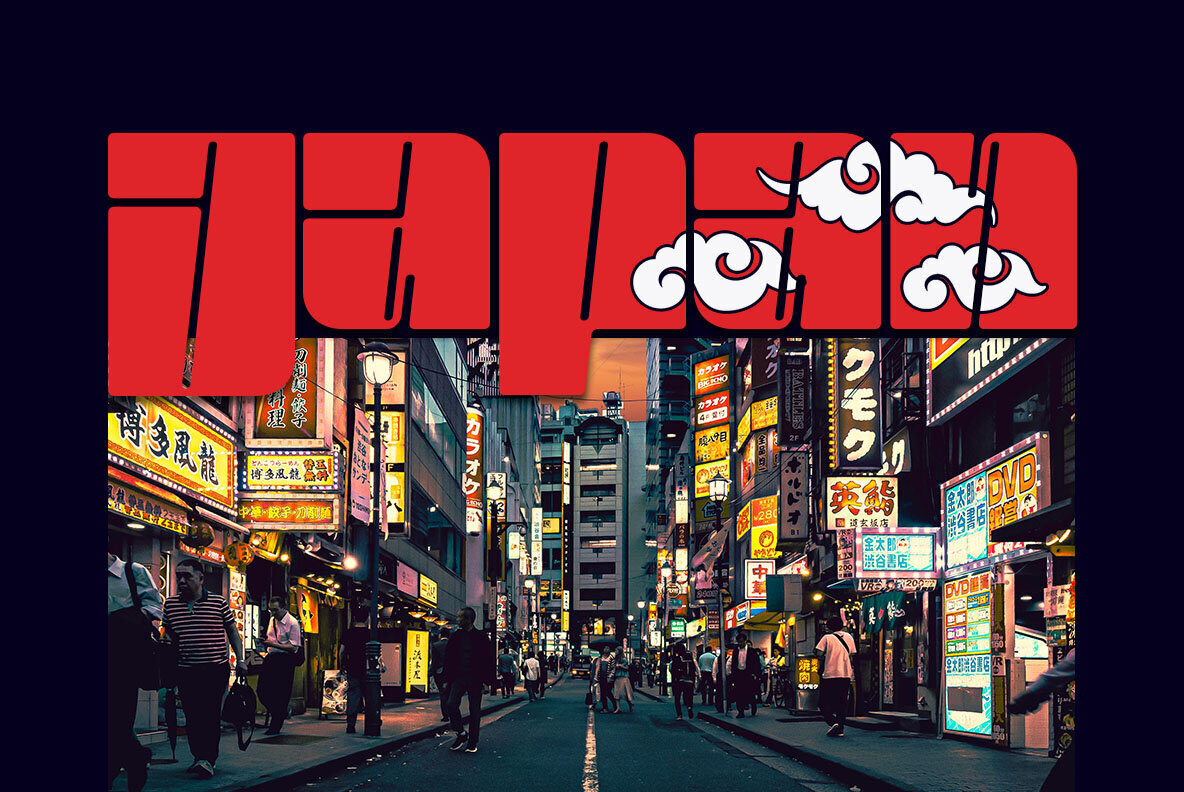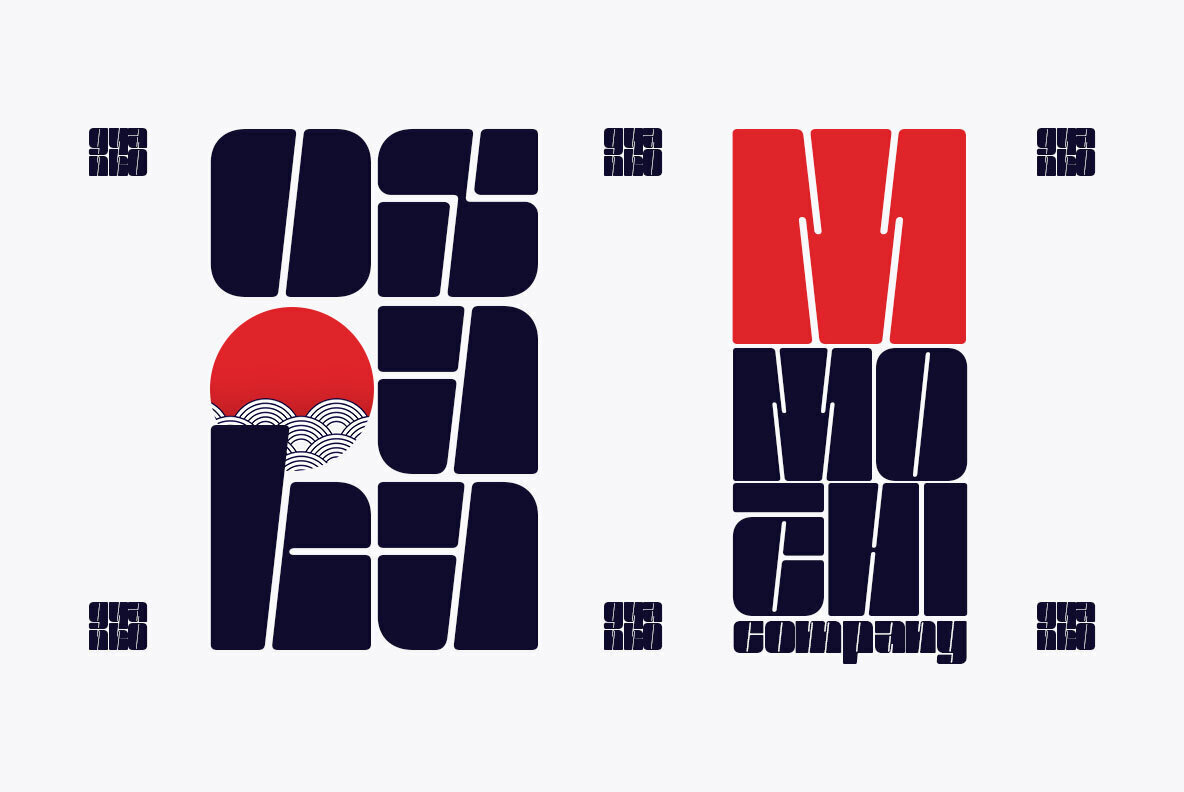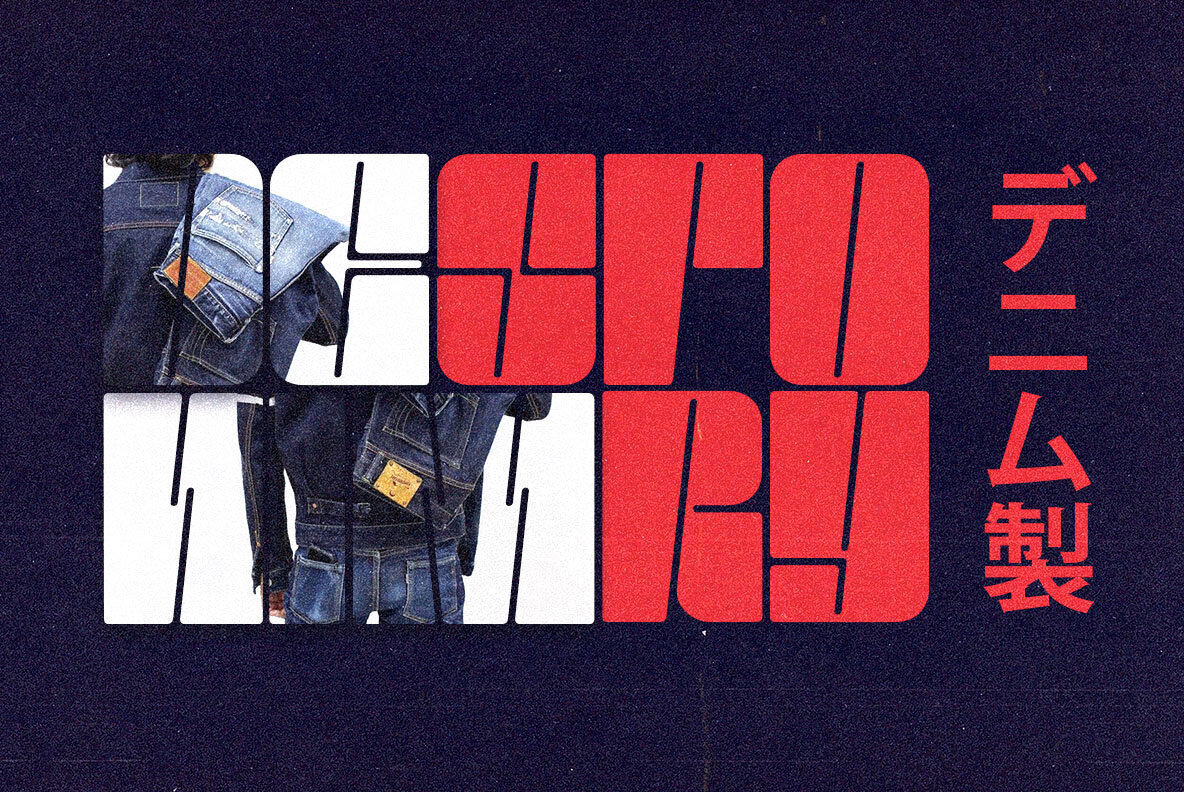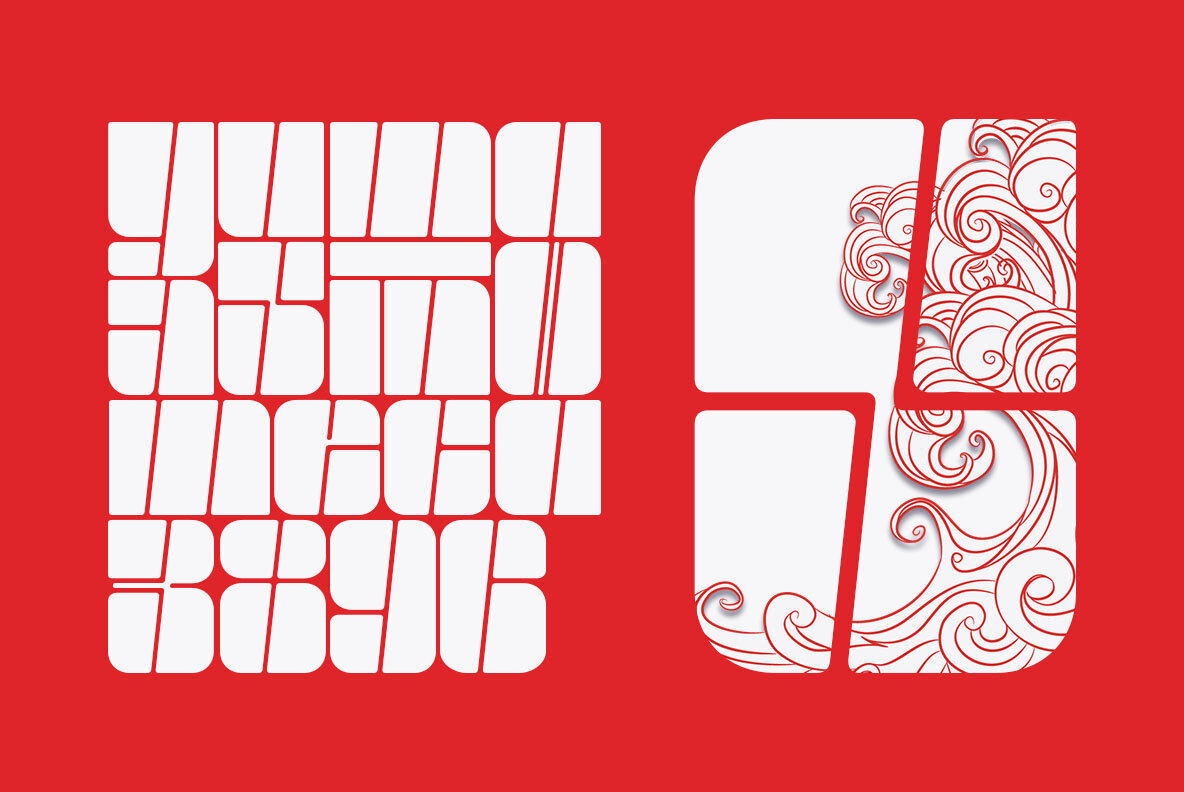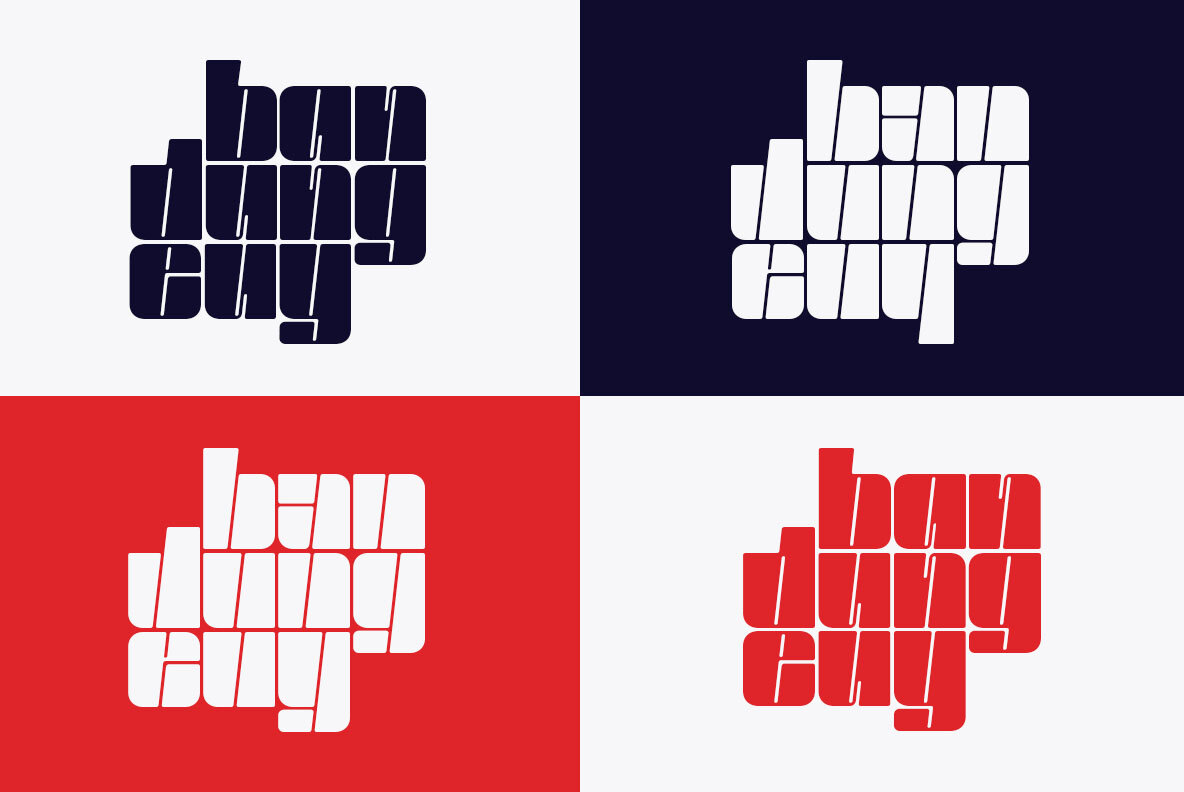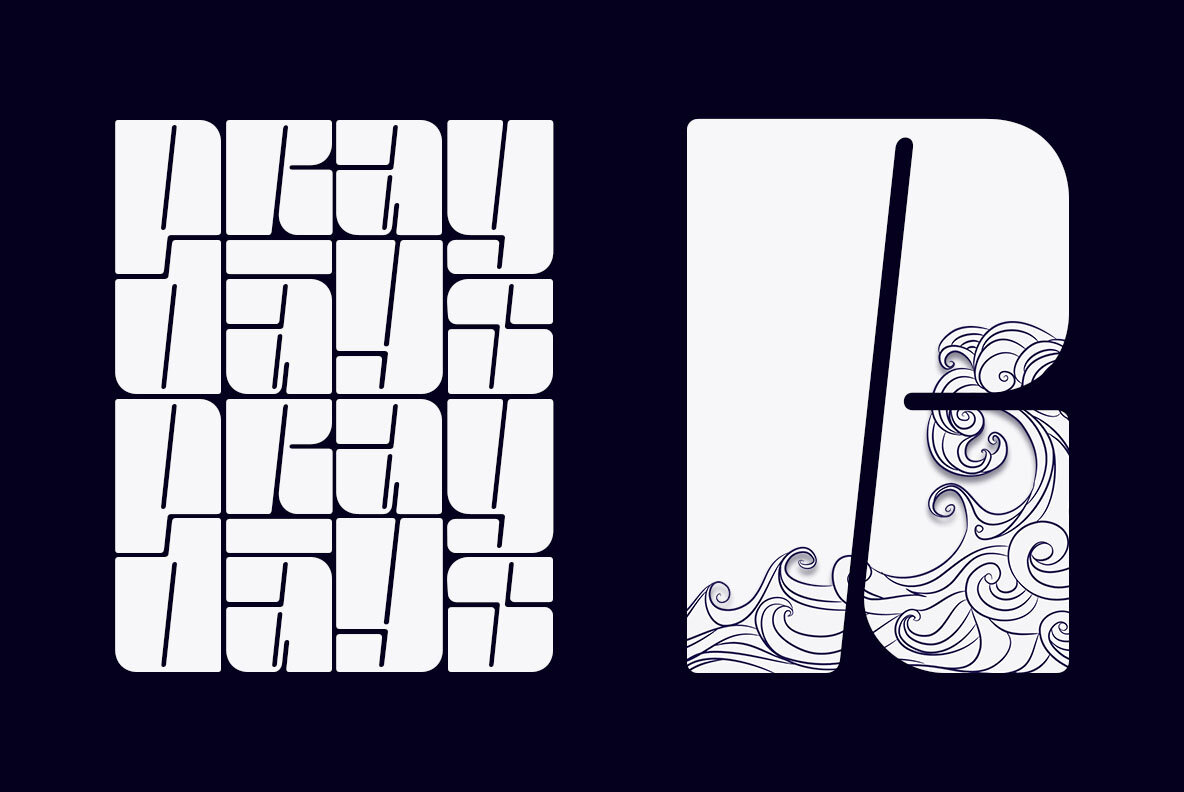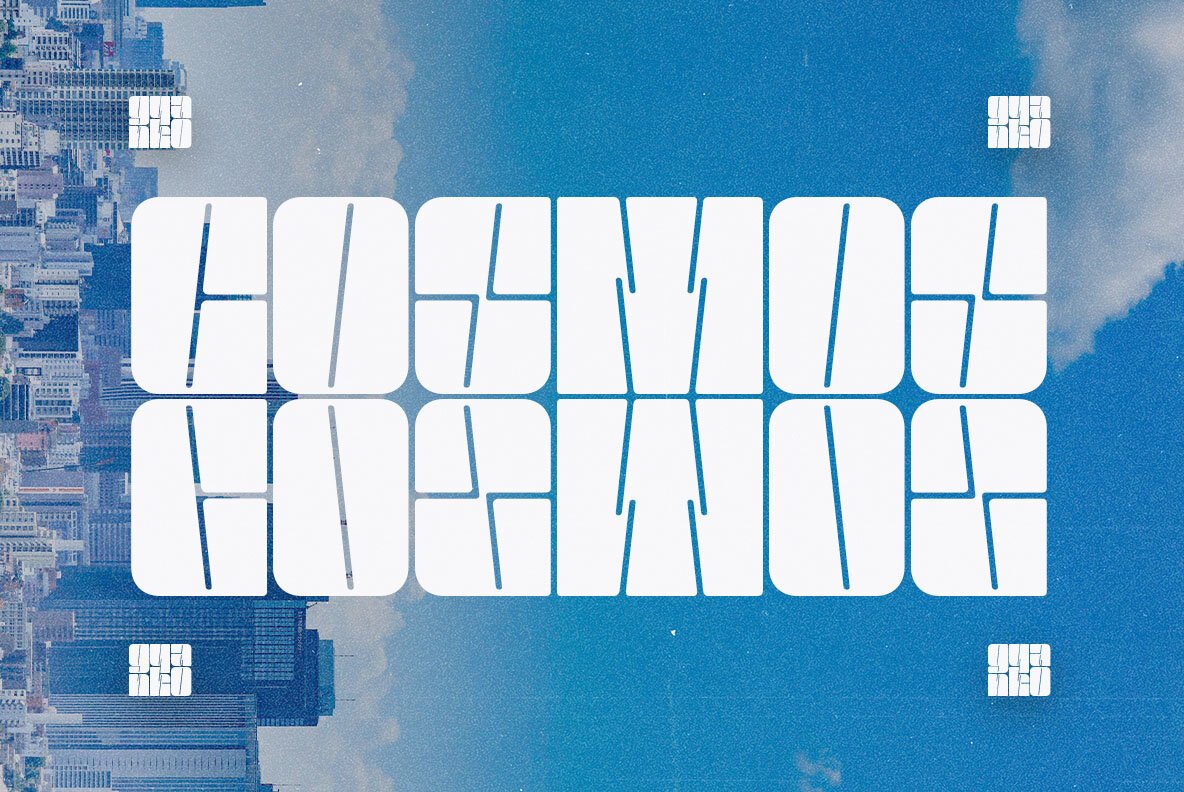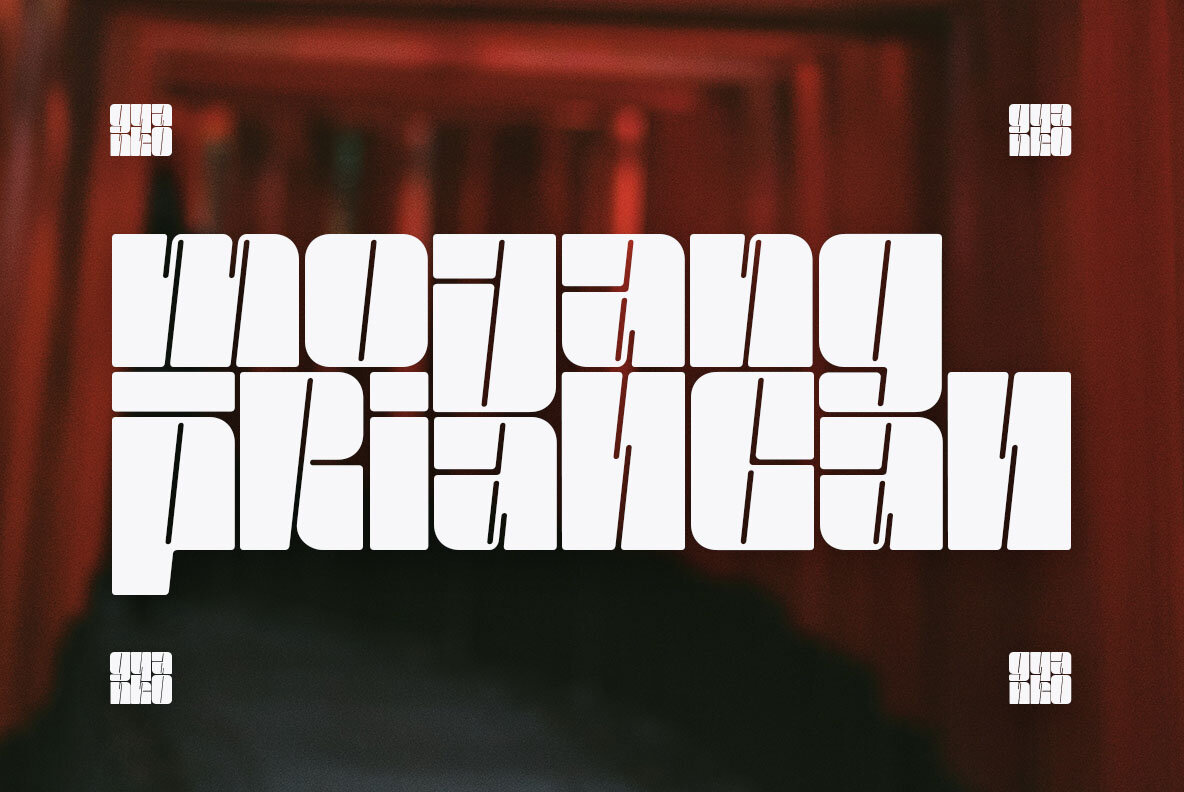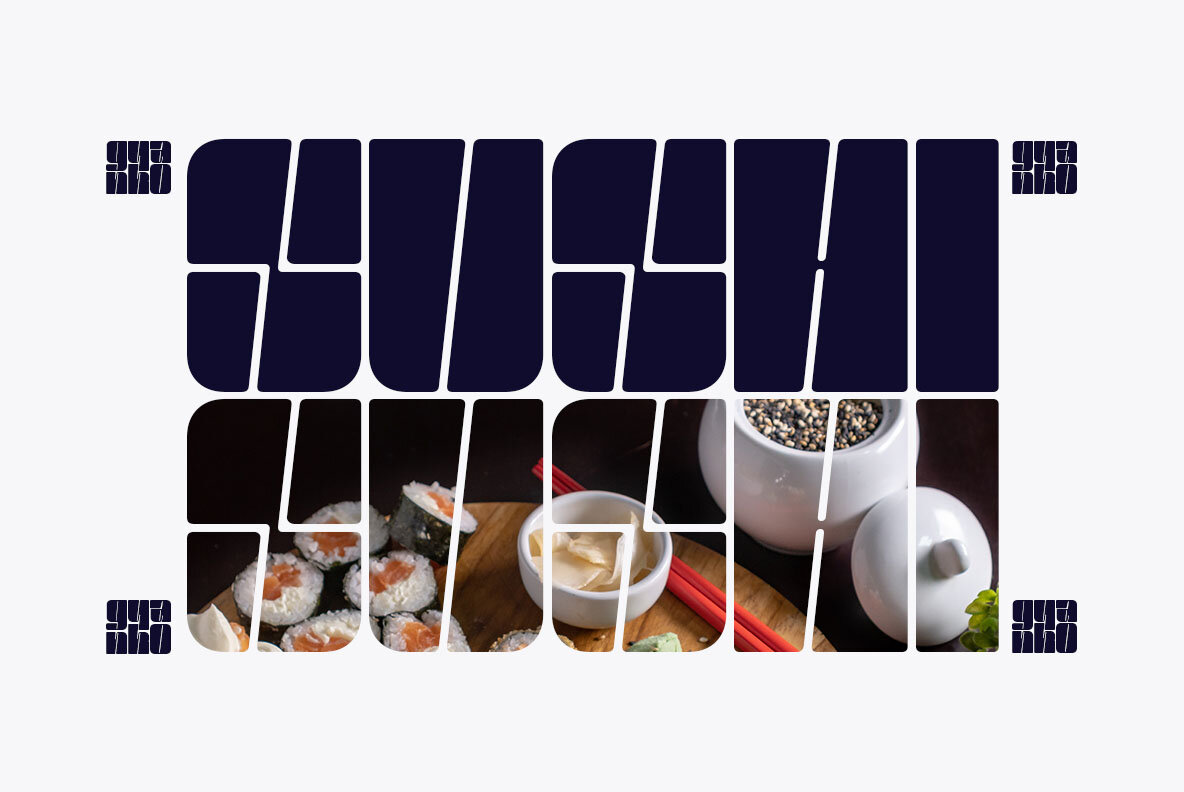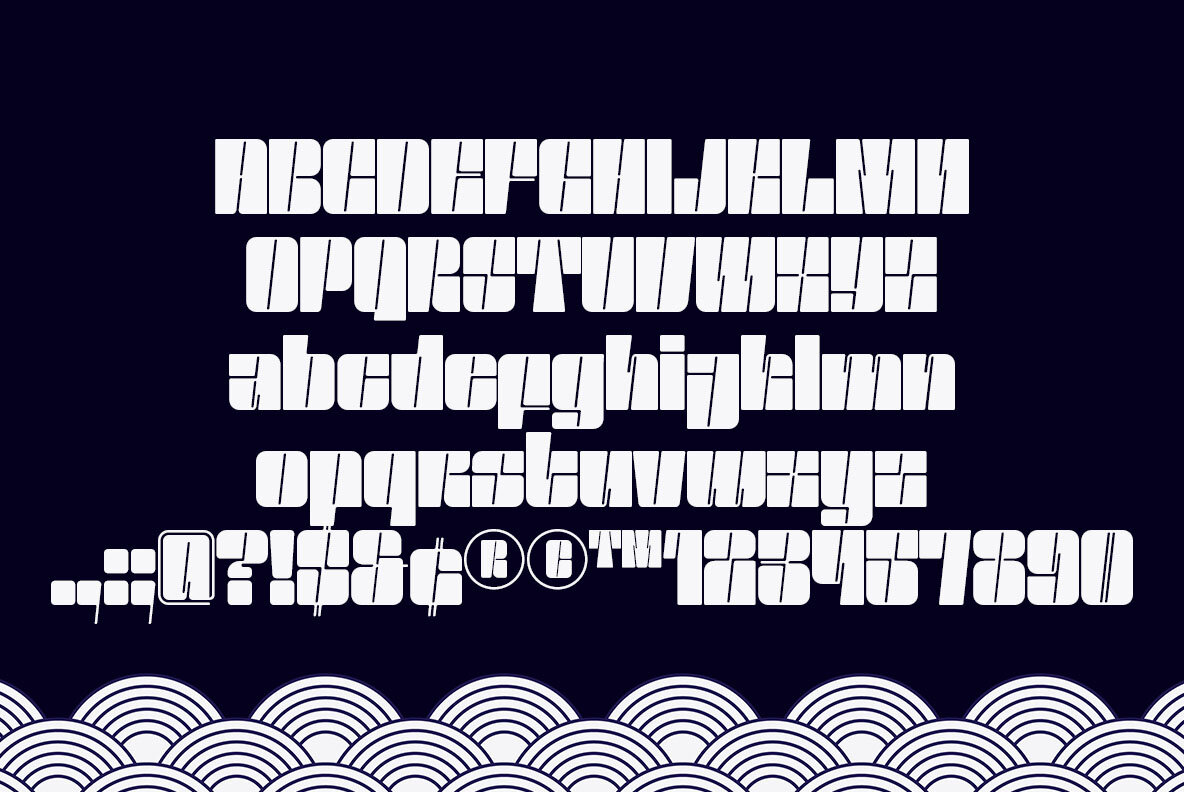
Gyanko Font
Gyanko Regular
Gyanko Stencil
Gyanko is one of a kind display font. With tight and equal side bearing, bold weight, and rhyme! It comes with Regular and Stencil version. Use it with tight space and use clipping mask, voila! Of course it's support multilingual. I also add some alternate, so you can have more option when you using the interlock feature.